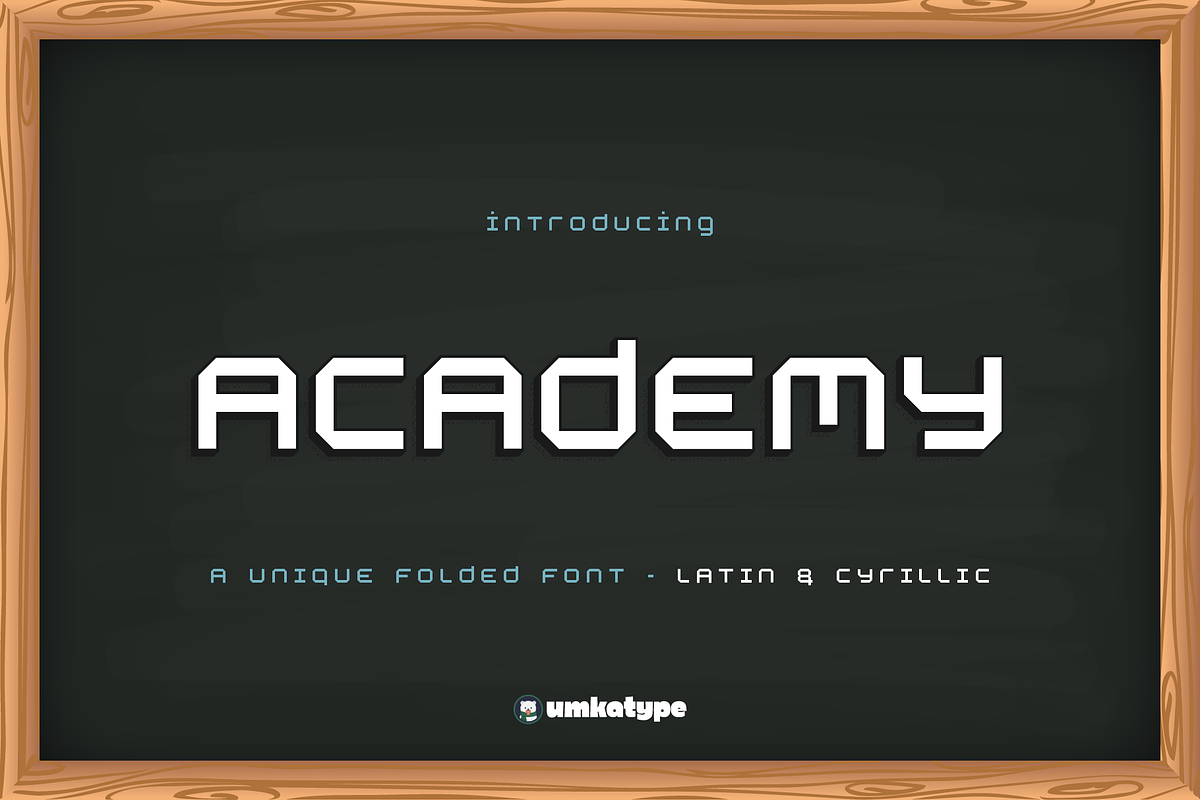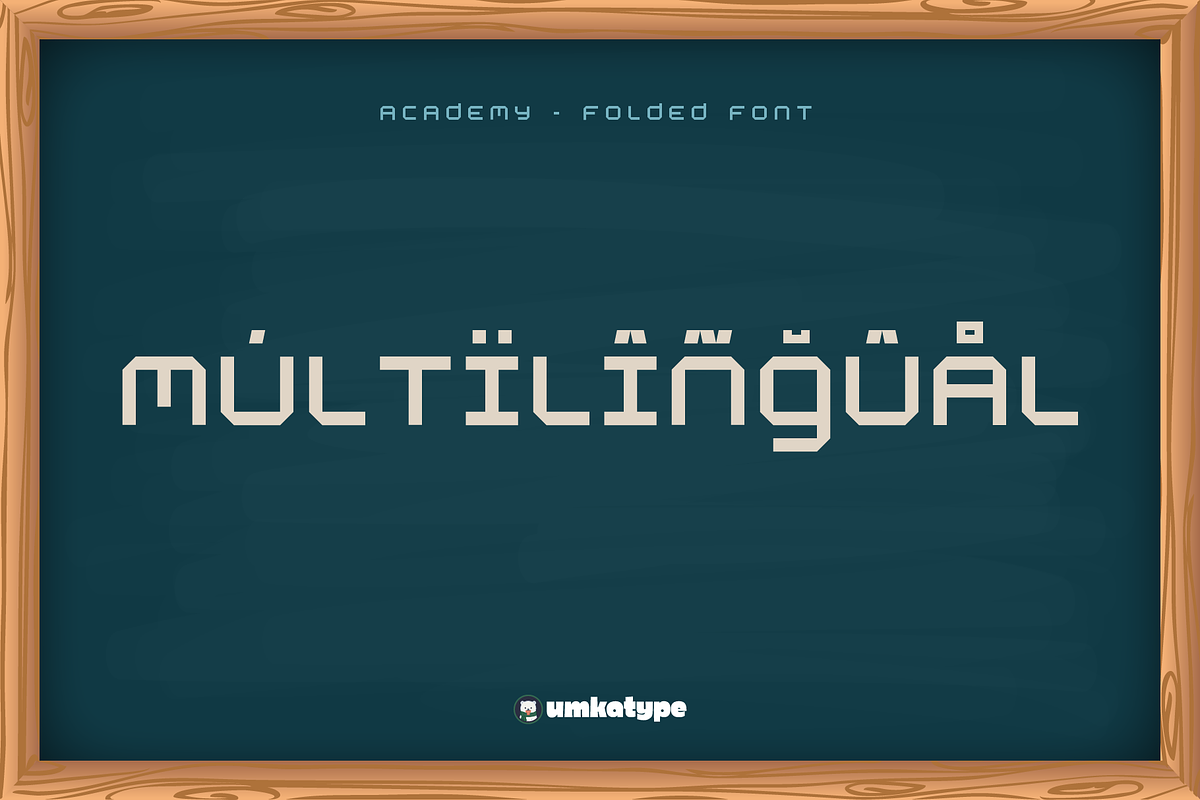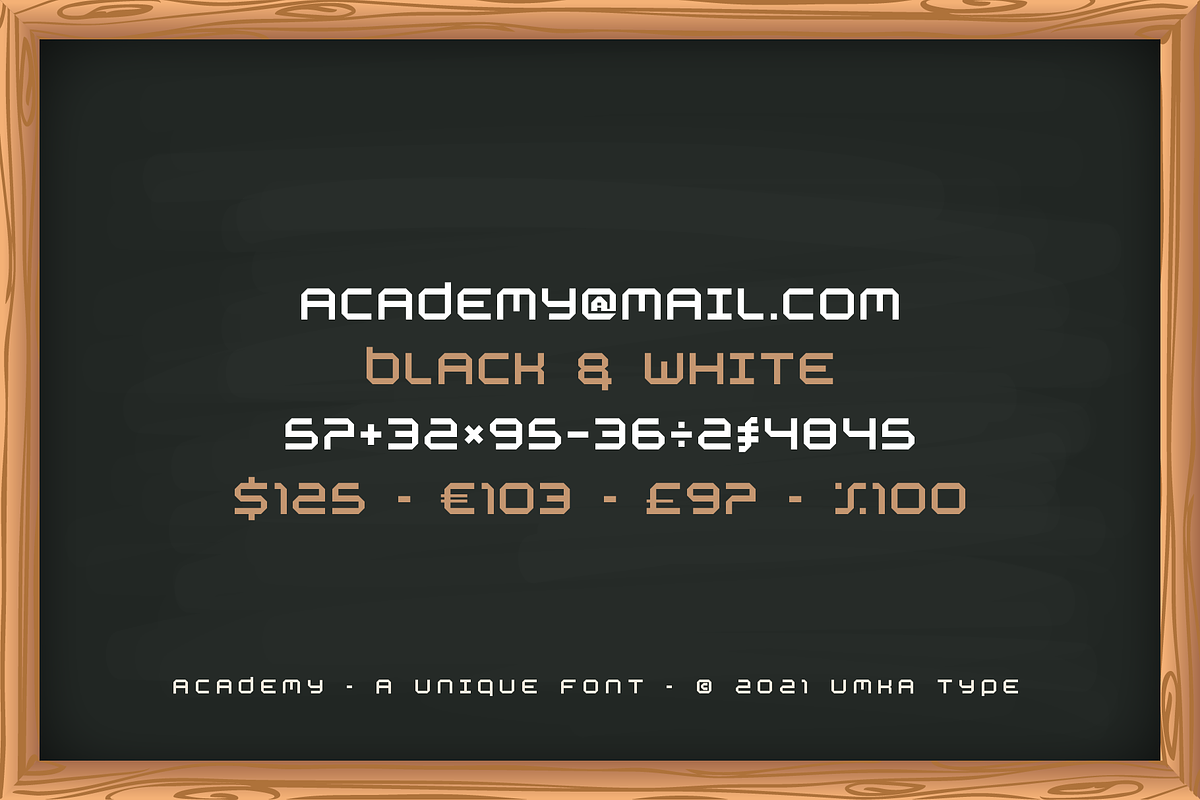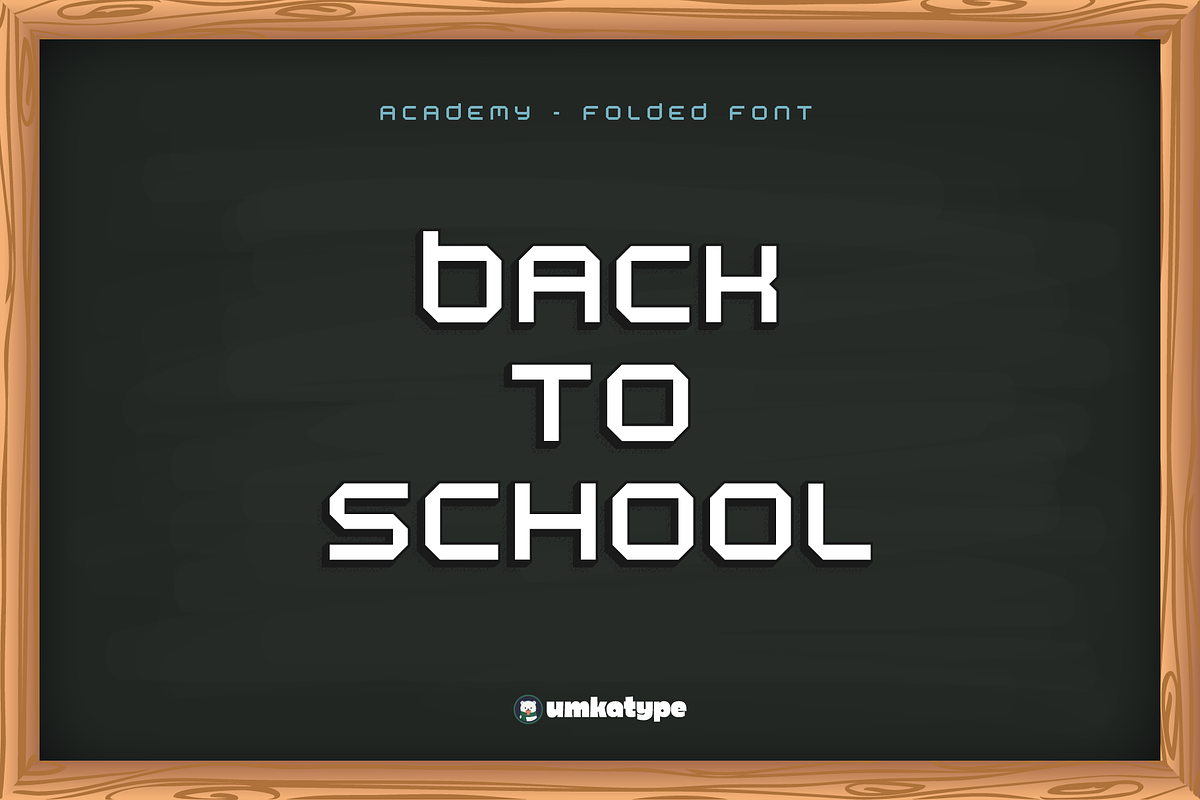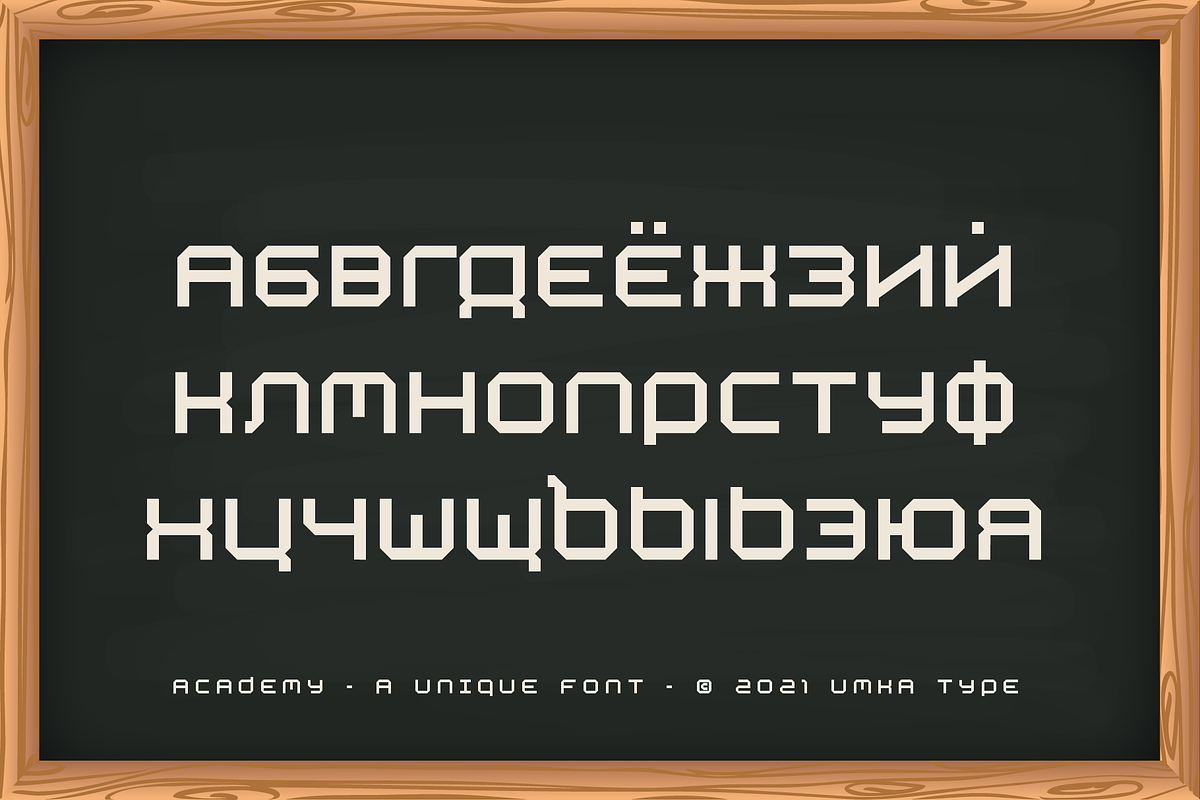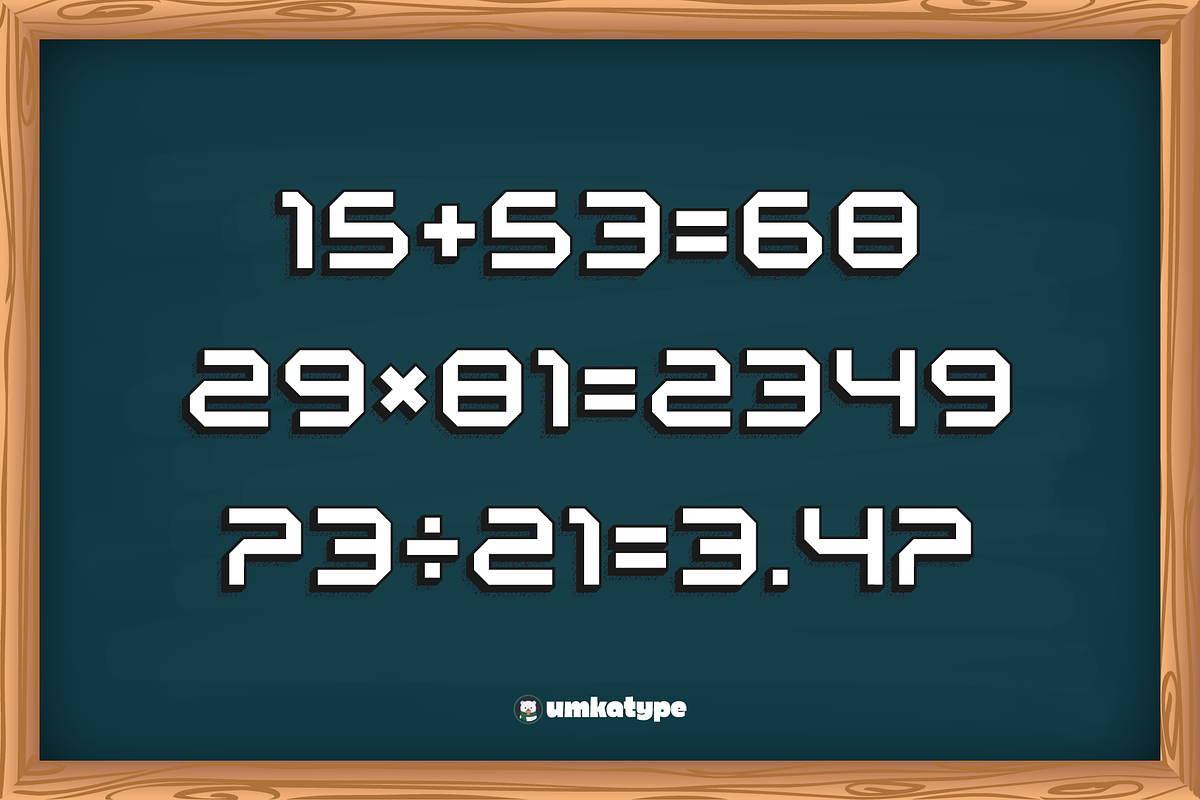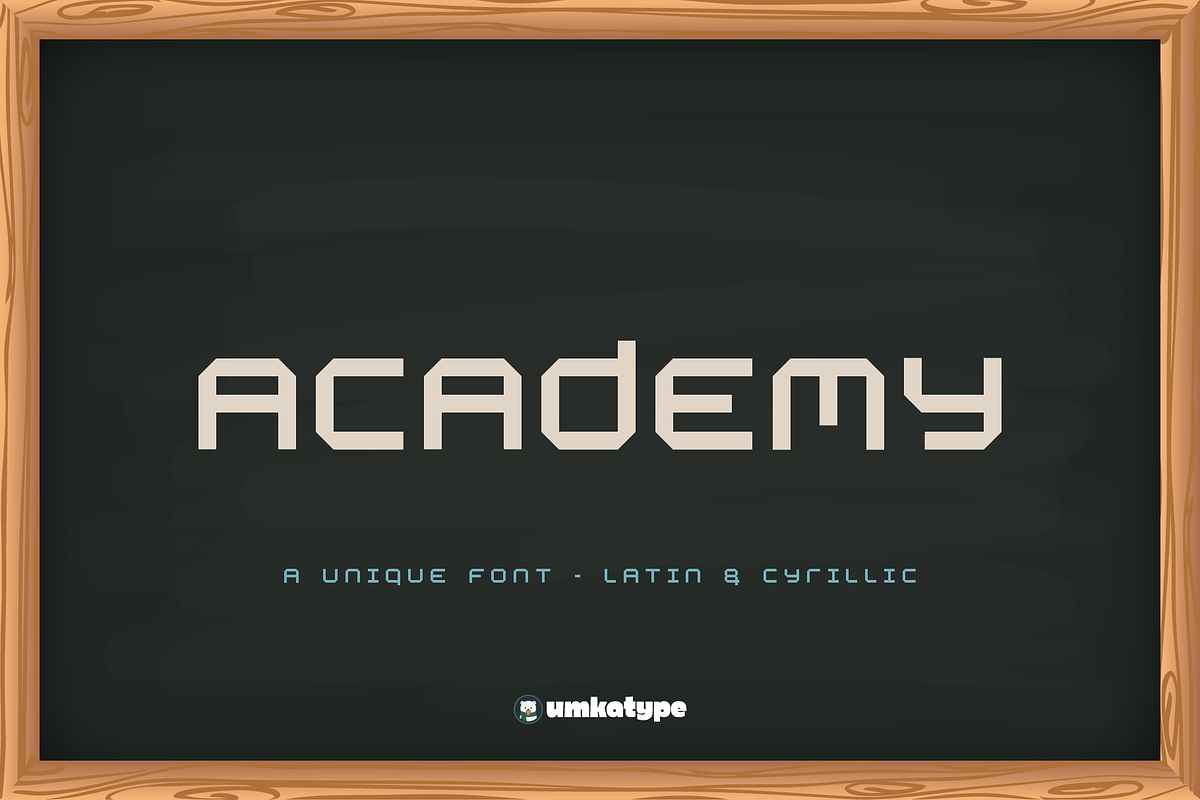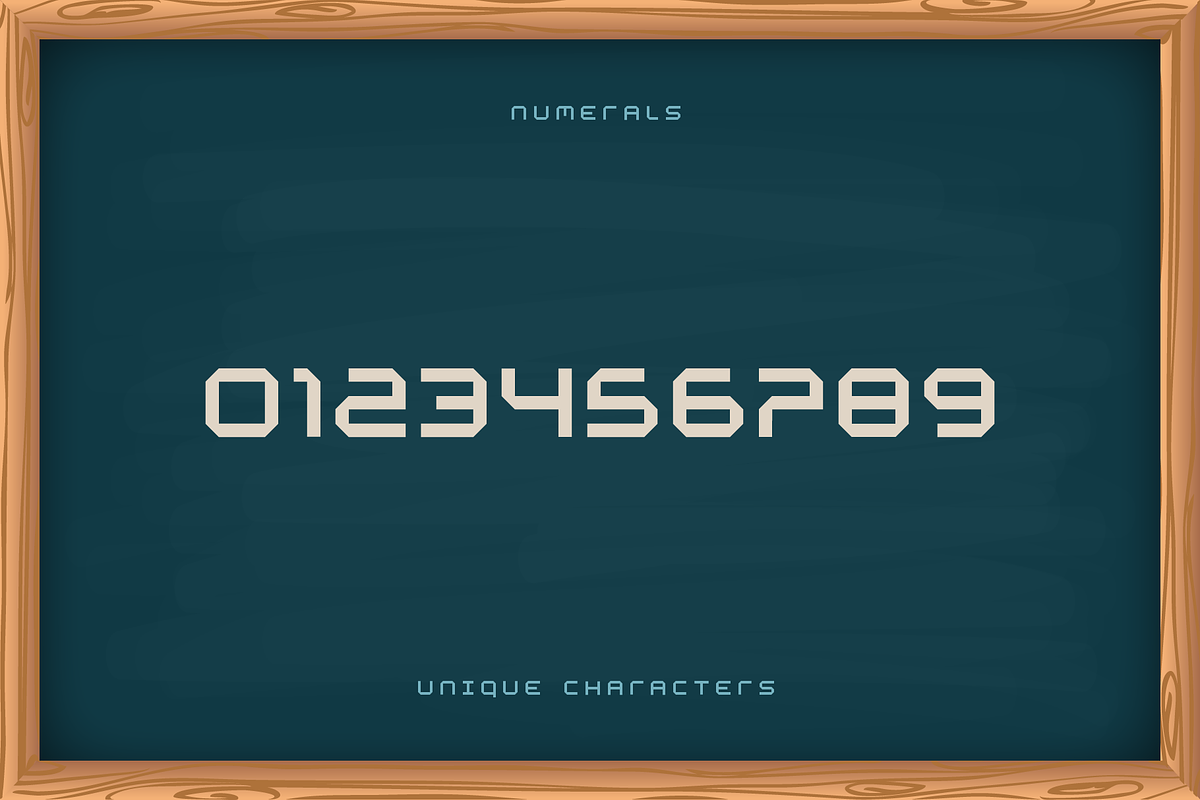
Academy Display Font
Academy - A Display Font
- Academy is a carefully crafted display font.
- Multilingual: It has Extended Latin and Extended Cyrillic letters.
Academy created for games, web design, branding and social media works.